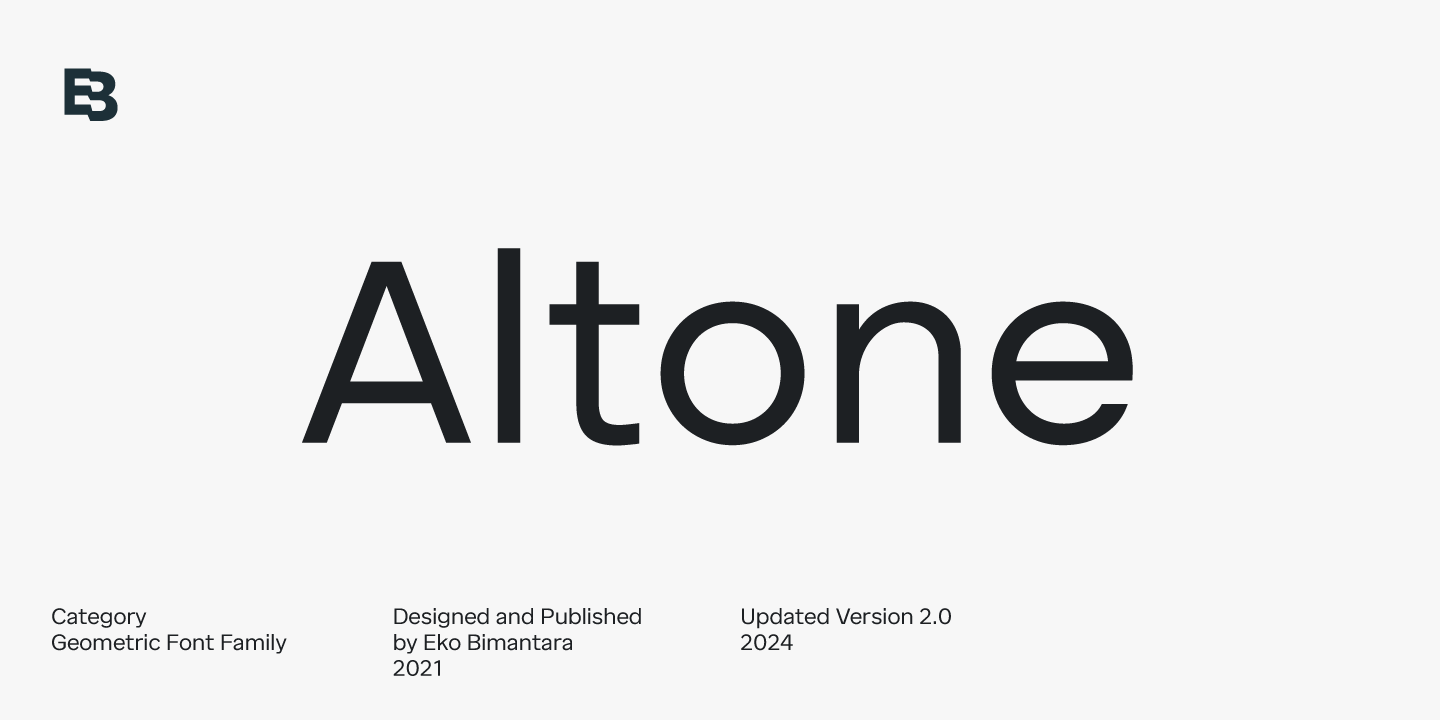
Altone Font is skillfully crafted for dynamic branding projects, energetic poster designs, contemporary logo creation, vibrant social media graphics, modern magazine layouts, creative advertising campaigns, youthful packaging designs, and bold digital interfaces. This distinctive typeface thrives in environments requiring visual energy and contemporary appeal, making it perfect for creative agencies, lifestyle brands, entertainment companies, and any business needing to communicate innovation and forward-thinking design sensibilities.
What makes Altone Font so exciting is its unique ability to combine bold visual impact with sophisticated design refinement that captures attention while maintaining professional credibility. The font features carefully engineered letterforms with dynamic proportions and contemporary character shapes that create instant visual interest. Its modern construction and energetic personality make it incredibly effective for brands wanting to communicate creativity, innovation, and youthful energy. The font's versatile nature allows it to adapt seamlessly from bold headlines to supporting text applications while maintaining its distinctive character.
Altone Font typically includes multiple weights and styles such as Light, Regular, Medium, Bold, and Extra Bold, often complemented by matching Italic variations. The font family frequently features additional stylistic alternates and special character sets that enhance creative possibilities. Each weight maintains the font's distinctive energetic character while offering different levels of visual emphasis, providing designers with comprehensive typographic tools for creating dynamic brand identities and engaging communication systems.
Creative professionals will discover that Altone Font Free Download delivers exceptional performance in both large display applications and smaller text uses. The font's carefully crafted OpenType features include extended character sets supporting multiple languages, stylistic alternates, and special glyphs that enhance design flexibility. Whether you're designing for tech startups, creative studios, lifestyle brands, or entertainment companies, this font provides the contemporary edge that helps brands stand out in competitive markets while maintaining excellent readability.
The meticulous attention to character spacing and proportions ensures that Altone Font maintains superior legibility across all sizes while delivering maximum visual impact. Its contemporary design language makes it particularly effective for digital applications, modern branding systems, creative marketing materials, and innovative product packaging. The font's dynamic presence creates strong brand recognition while remaining highly functional across different design contexts from digital platforms to traditional print media.
For designers seeking a typeface that embodies contemporary energy with professional reliability, Altone Font Free Download represents an outstanding choice that will energize any project with its distinctive character and modern appeal.